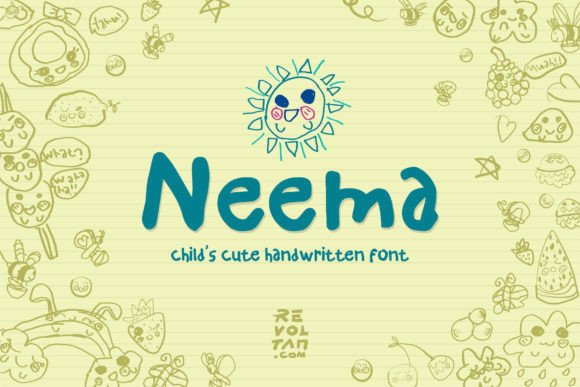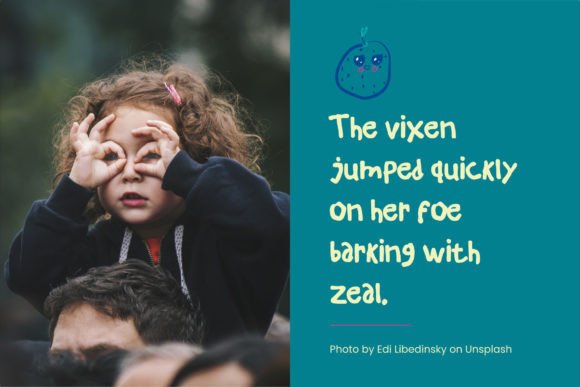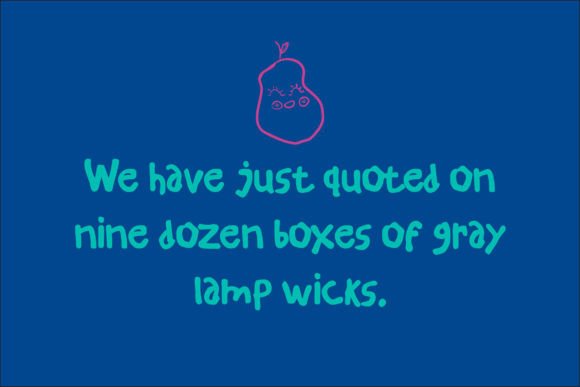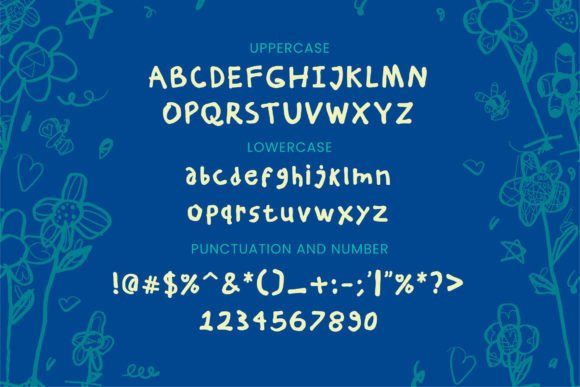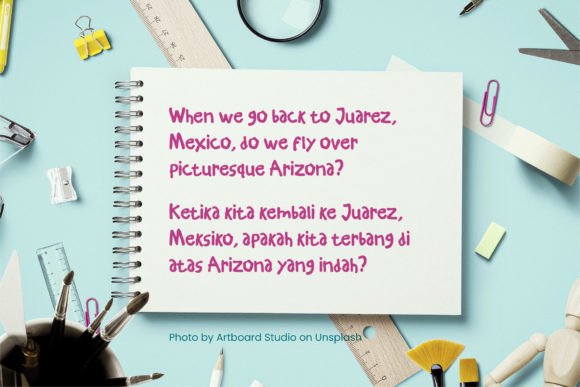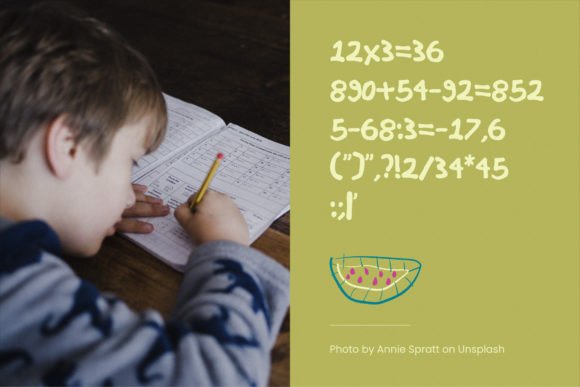
Neema Font
About Neema Font
“Neema” is a charming hand-lettered typeface that captures the organic and playful essence of children’s scribbles. This unique font is well-suited for brands and design projects related to children, making it a versatile choice for various applications, including social media posts, children’s books, posters, party invitations, baby showers, birthday cards, marketing materials, and more. “Neema” is created directly from real children’s handwriting, scanned, and carefully assembled into a font to preserve its authentic and endearing qualities.
For brands and businesses targeting a younger audience or those related to children’s products or services, “Neema” offers a typeface that embodies the whimsy and innocence of childhood. Whether used in logos, marketing materials, or packaging, this font adds a personalized and relatable touch, making your brand more appealing to both kids and parents.
In children’s books, “Neema” brings a delightful and authentic handwritten quality to the text, making the reading experience more engaging and relatable for young readers. Its playful and organic feel complements the content of children’s literature beautifully.
Party invitations, baby showers, and birthday cards designed with “Neema” take on a fun and personalized look, perfect for celebrating special occasions for children. The font adds a touch of youthful exuberance to the design, making the event more memorable.
Social media posts and content related to children’s topics benefit from “Neema’s” childlike scribble style. It adds a sense of authenticity and relatability to your posts, making them more appealing to your target audience.
In summary, “Neema” is a hand-lettered typeface that preserves the organic and endearing qualities of children’s scribbles. Its versatility and playful charm make it an excellent choice for brands and design projects related to children, adding an authentic and relatable touch to a wide range of creative applications.